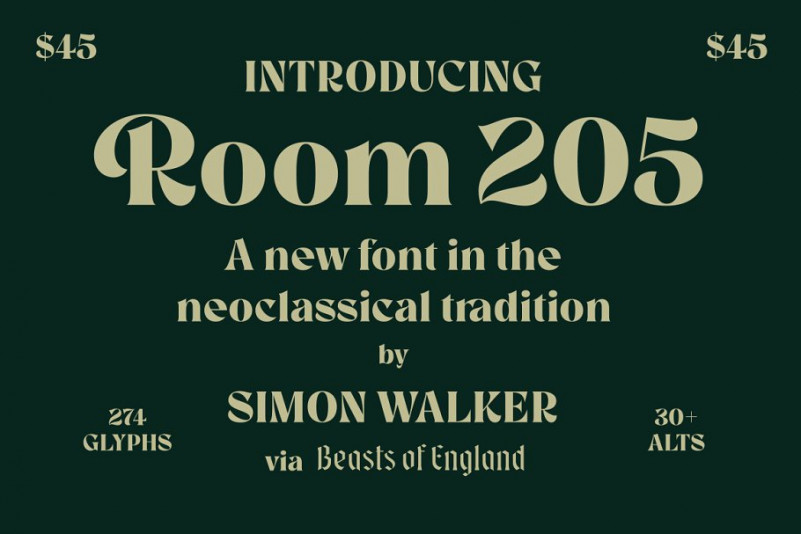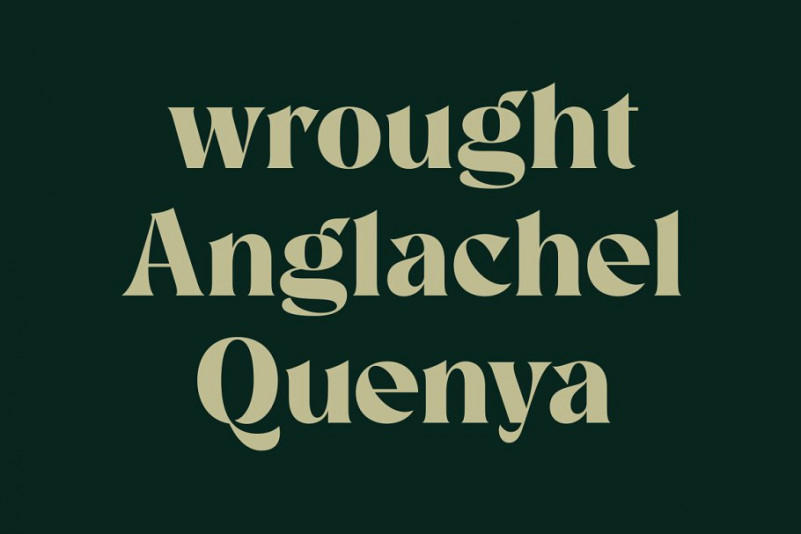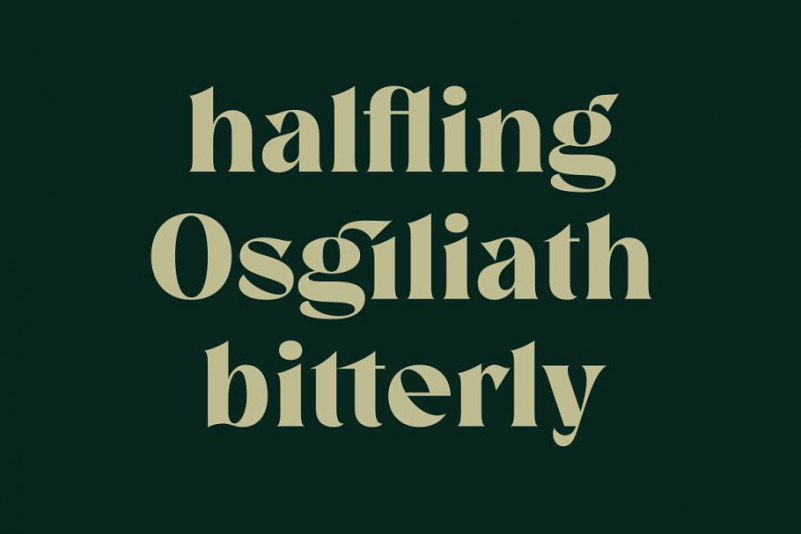
Room 205 Font
Inspired by conversations between my grandmother and J.R.R. Tolkien in the 1960s, Room 205 is a bold, expressive font in the neoclassical tradition. It has 274 glyphs, including more than 30 alternate characters and ligatures.